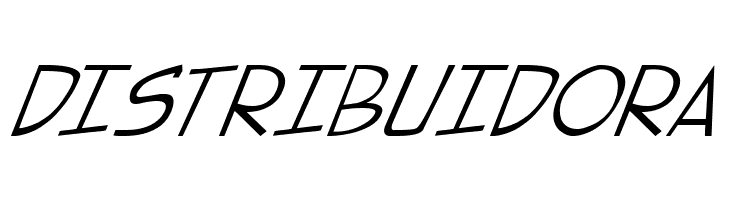
Xephyr Expanded Font
- Font: Xephyr Expanded
( Fonts by Press Gang Studios - Andeh Pinkard - www.pressgang-studios.com )
A dynamic italic font with smooth, slanted letterforms and a modern edge.